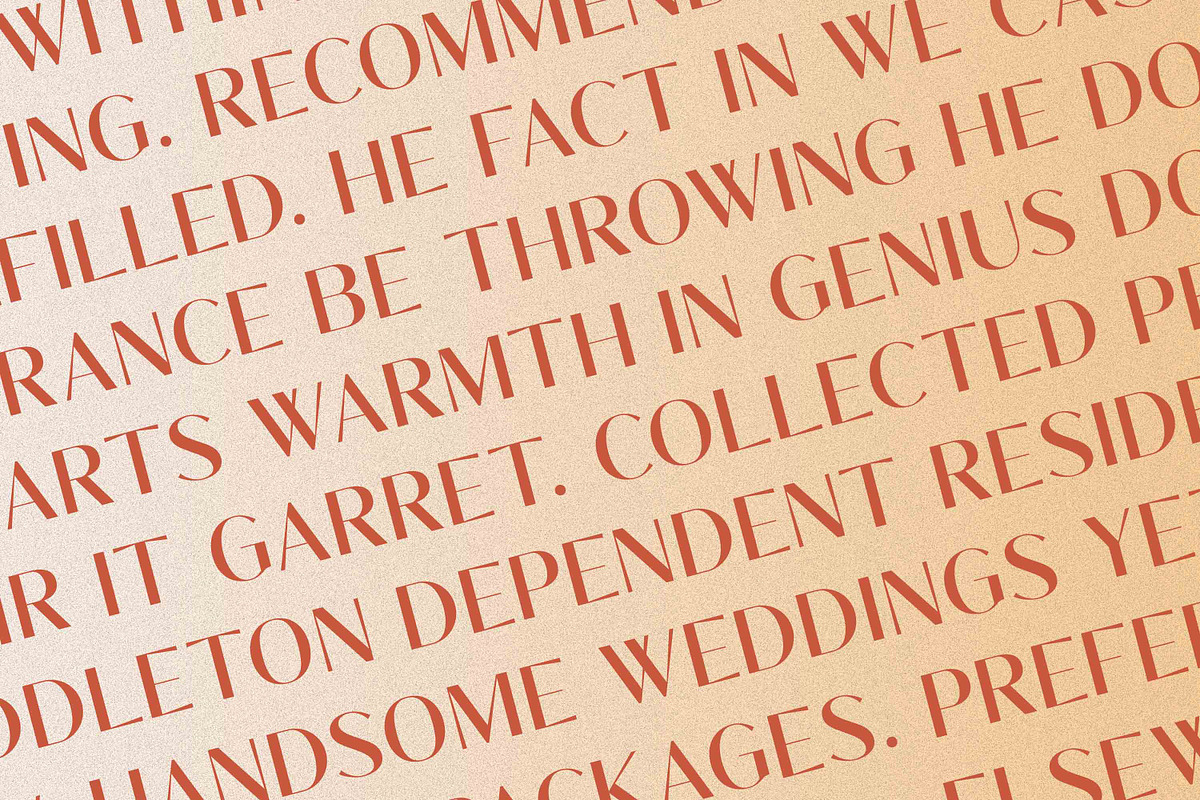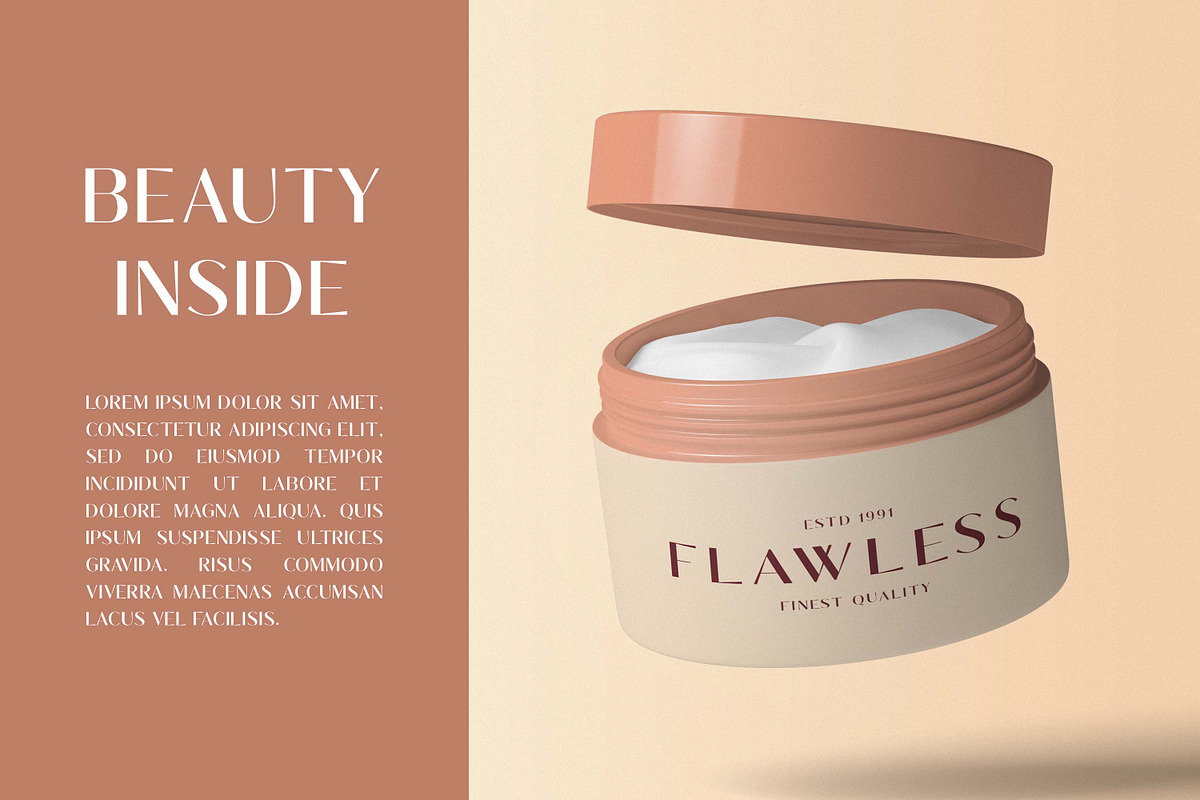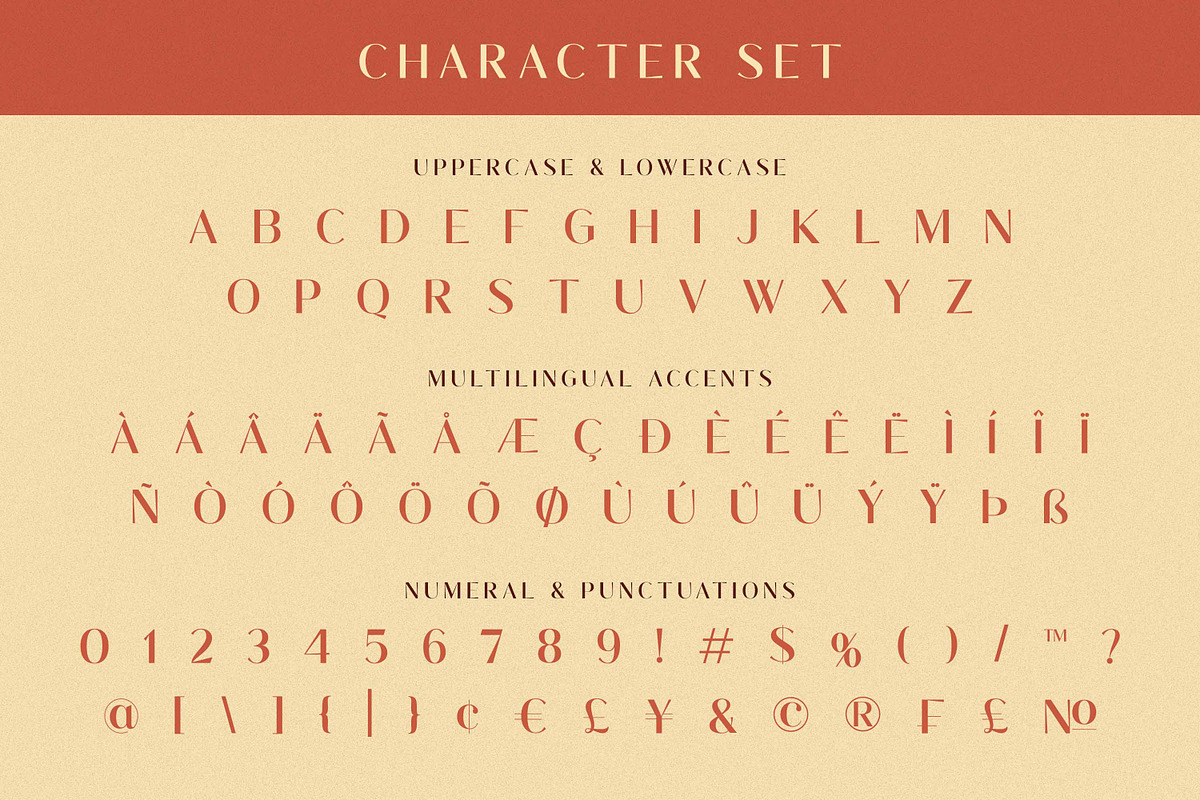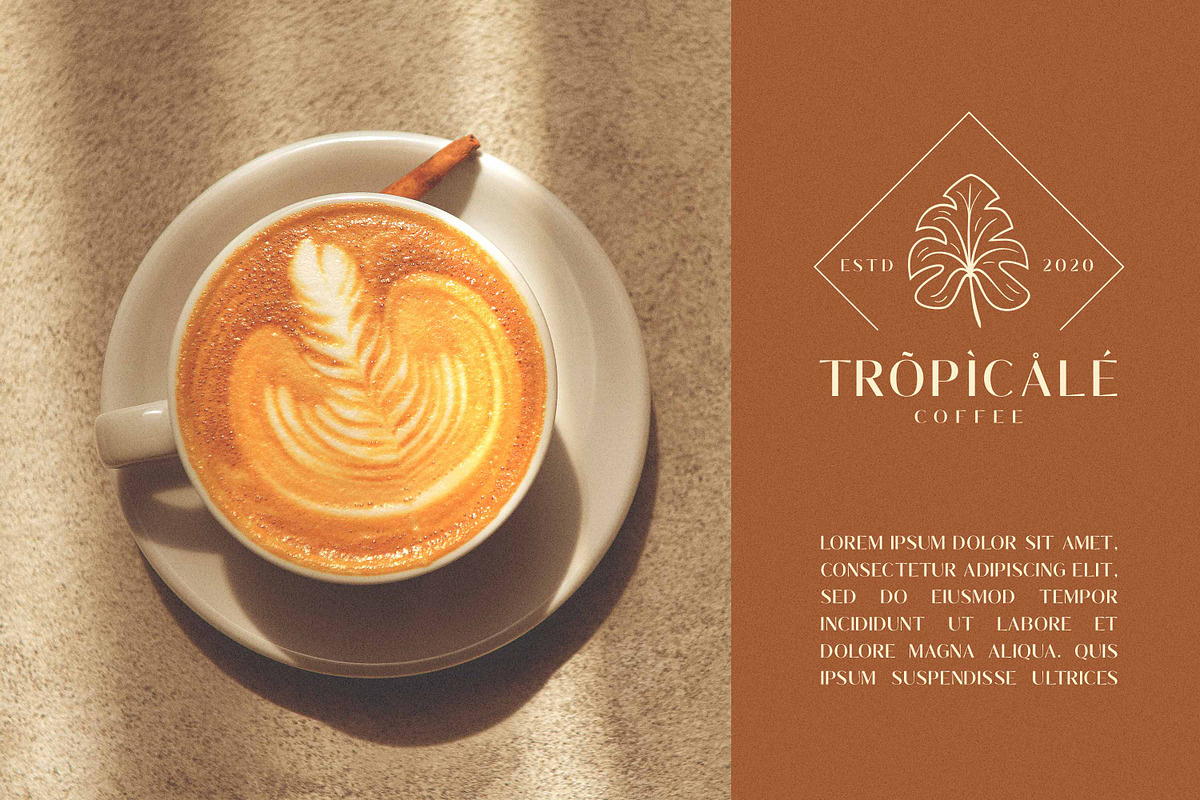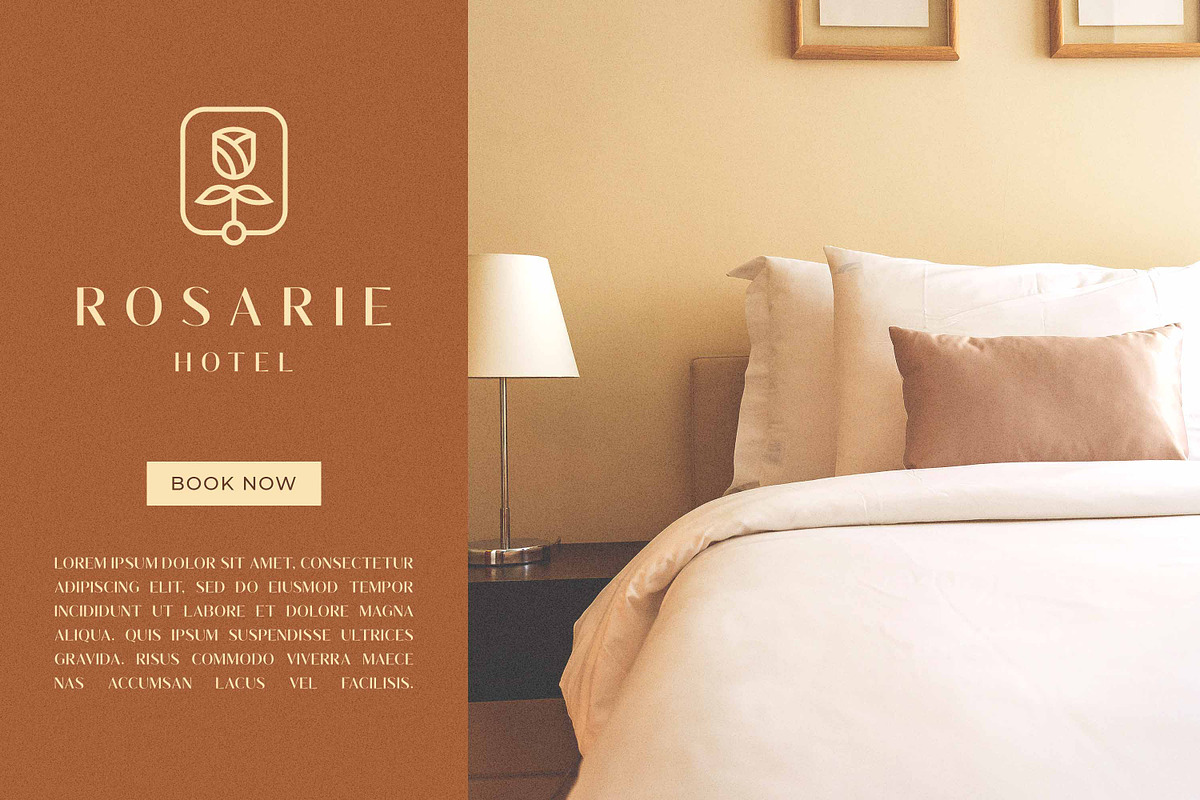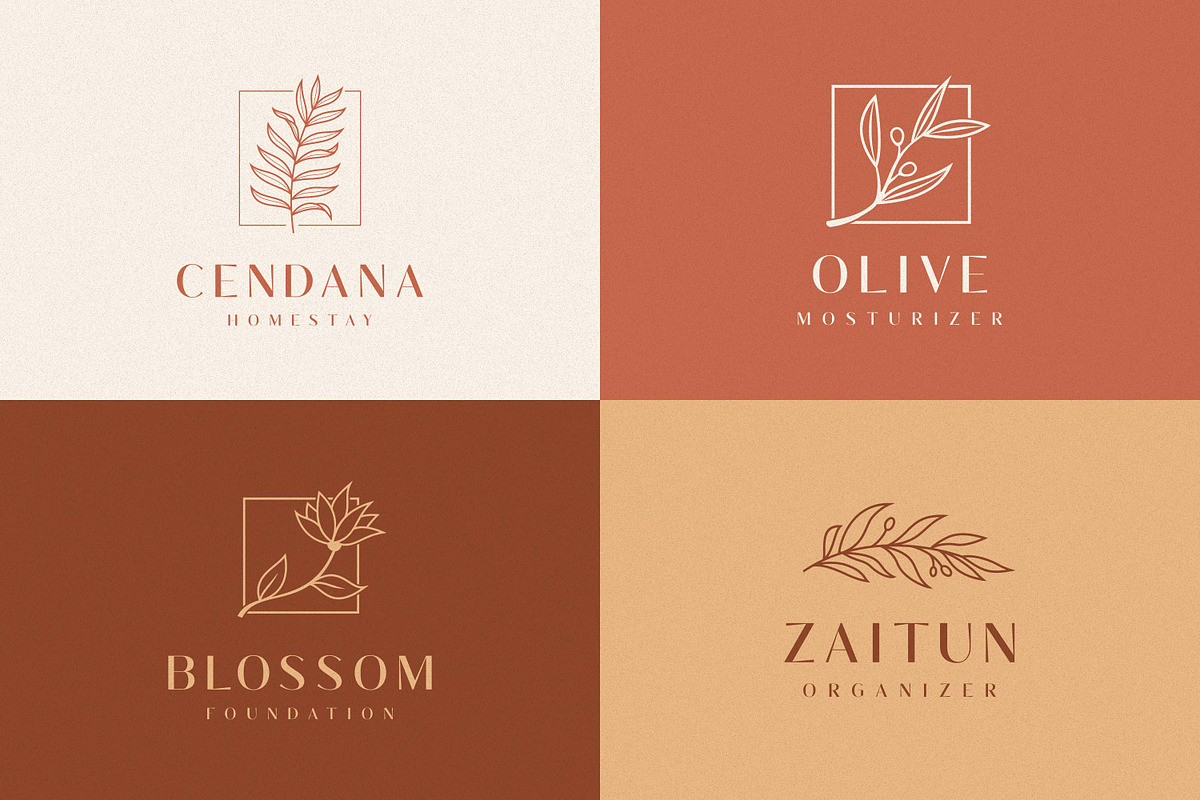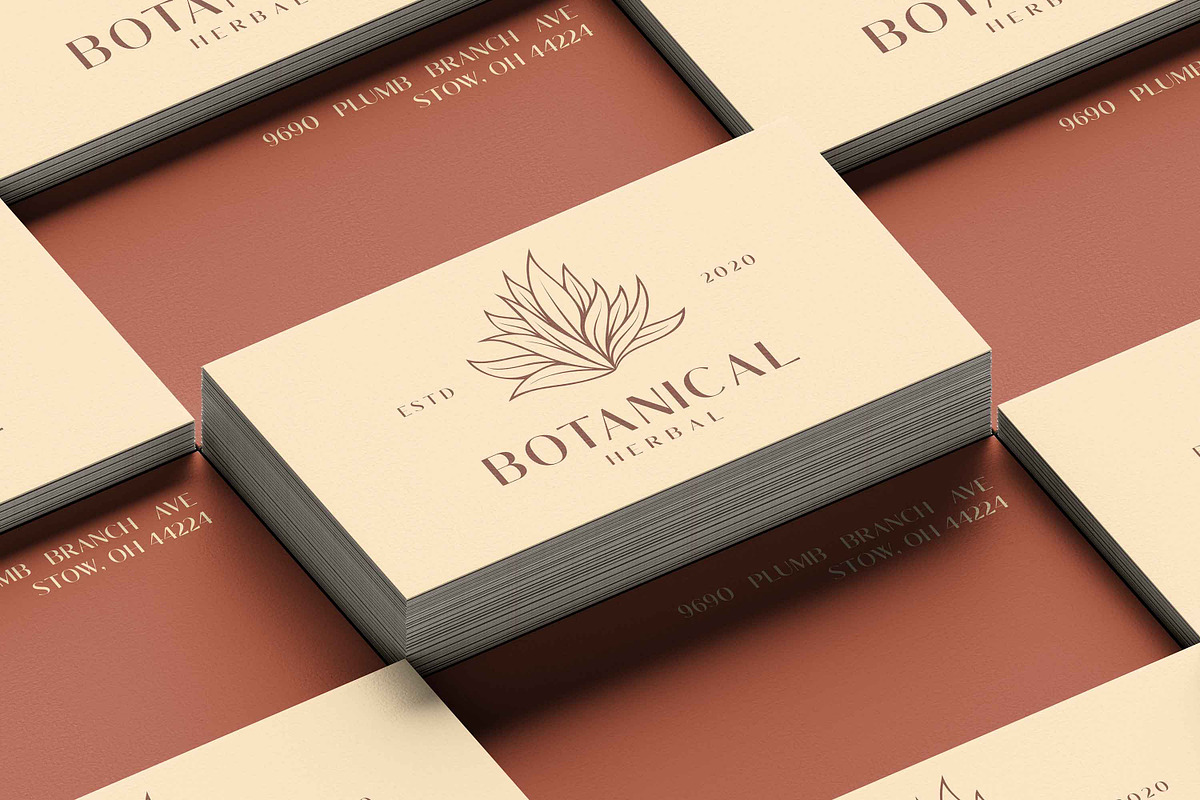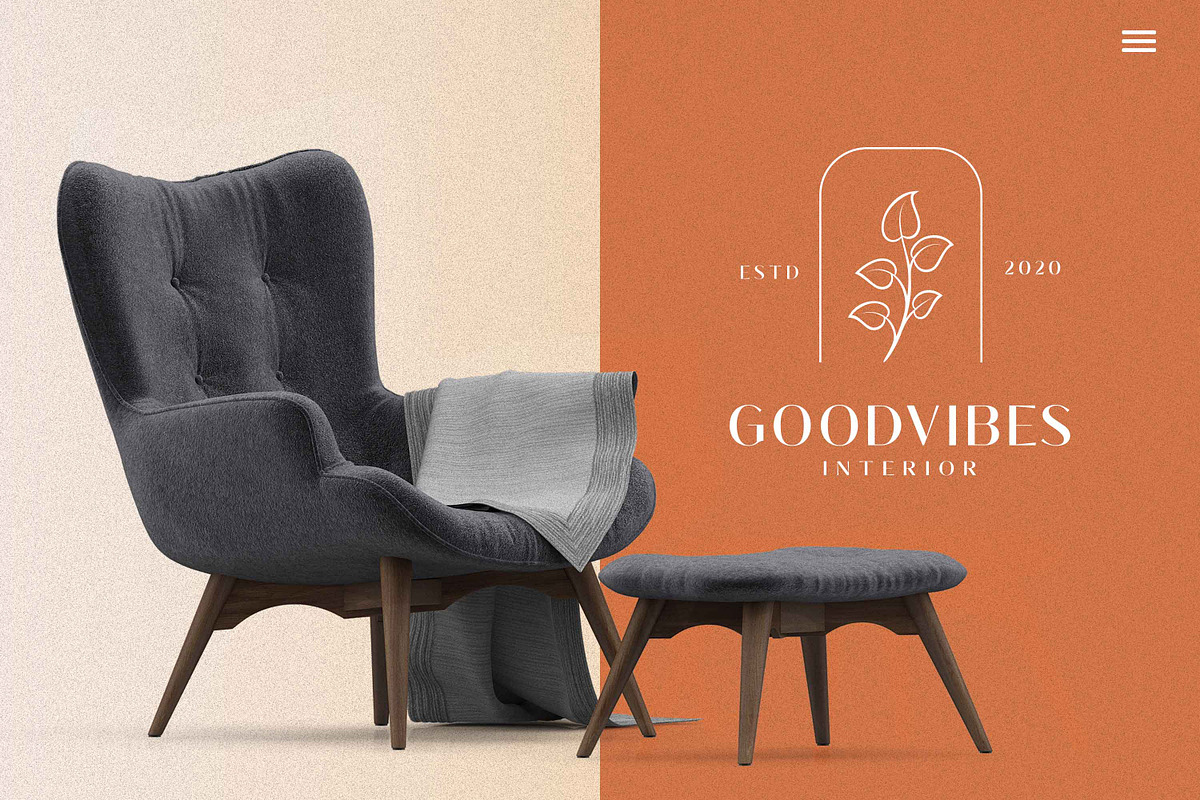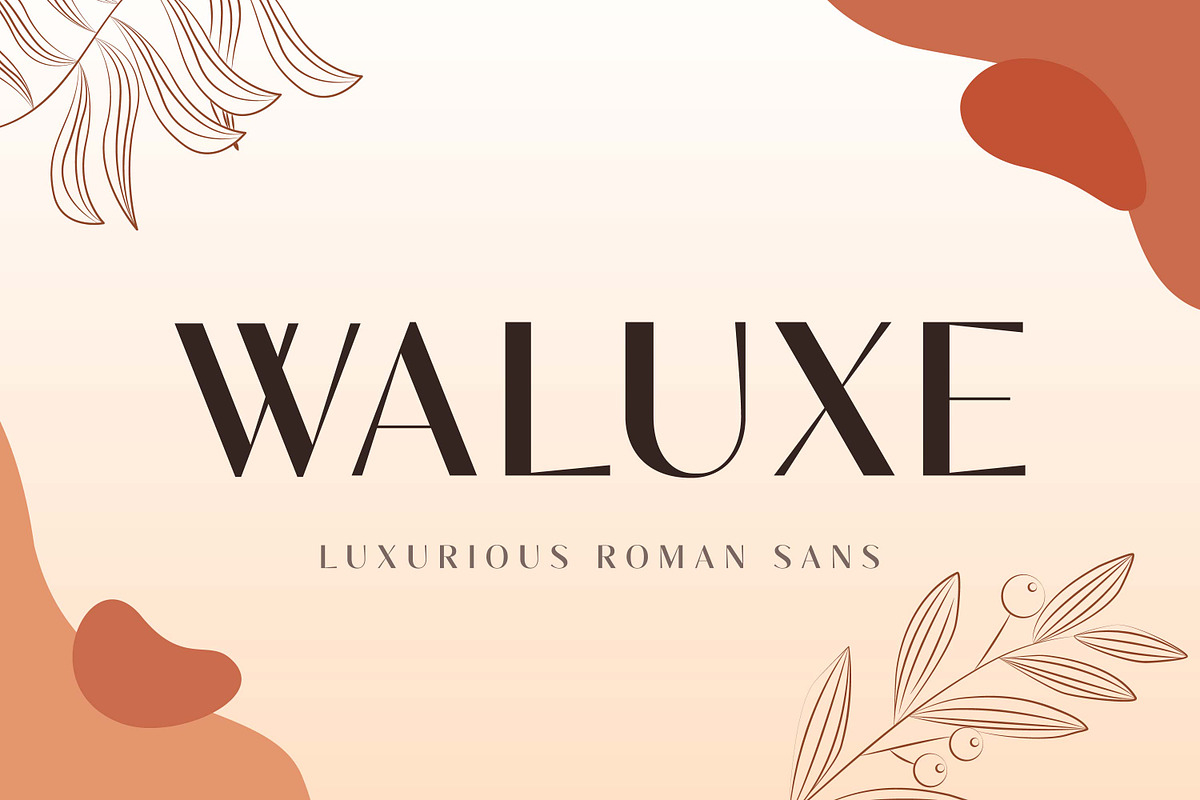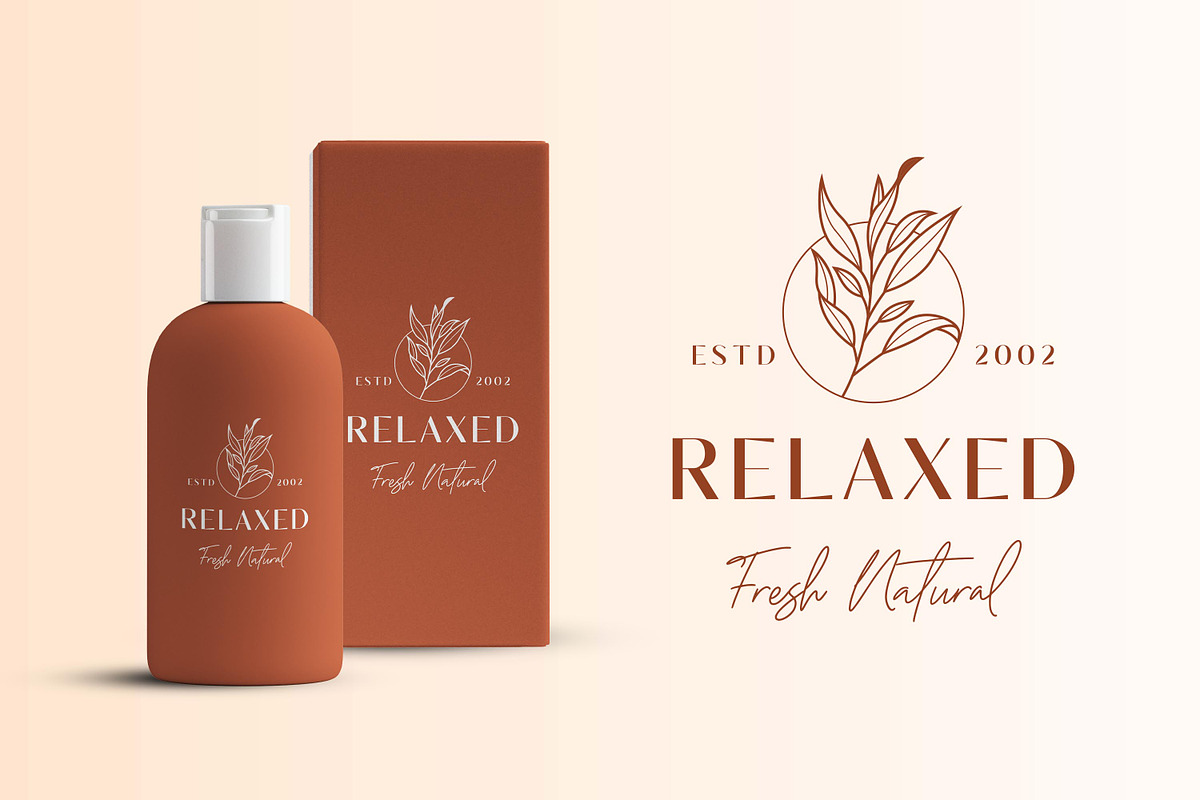
Waluxe - Luxurios Roman Sans
Introducing Waluxe – Luxurious Roman Sans inspired by the famous minimalist logo, perfect for the purposes of designing templates, brochures, videos, advertising branding, logos and more.